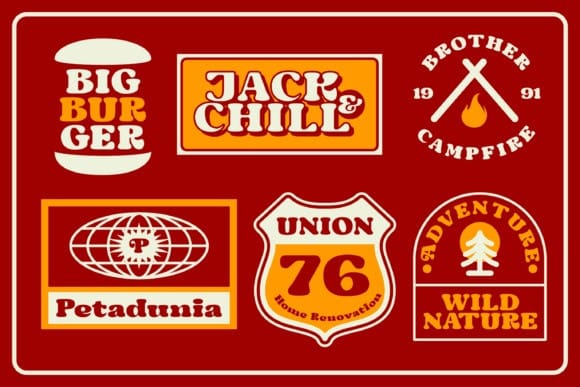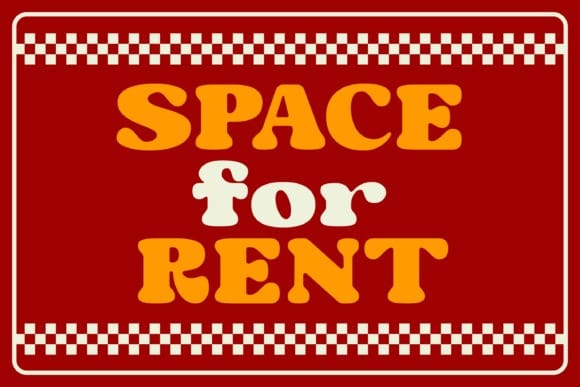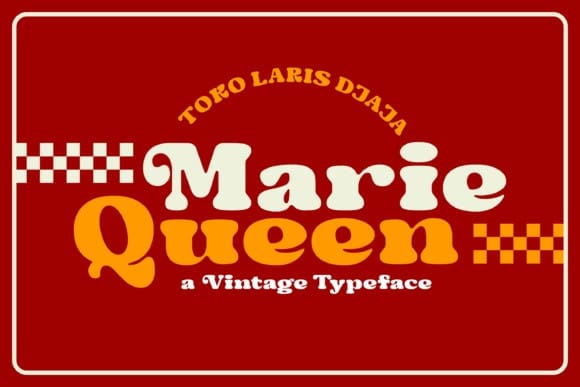
Marie Queen Font
Marie Queen Font is a strong, tough, long-lasting retro typeface. Inspired by retro bold typography. Marie Queen feels playfully nostalgic and delivers an incredible vintage retro aesthetic. This font is perfect for most every project like label, packaging, craft, book covers, poster, merchandise, branding, sticker, and much more. Use this display font to add that special retro touch to any design idea you can think of!